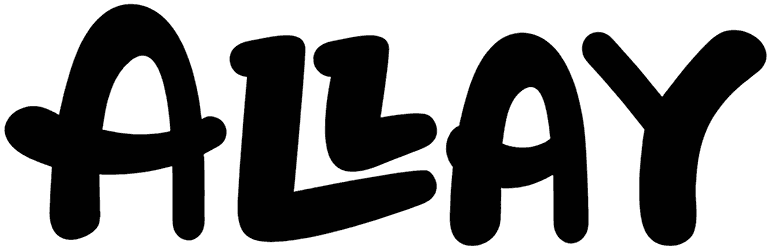
Allay Font
Considering a fun and cheerful vibe for context can be an unexpected promotion for your intended design. As a cartoon font with a chunky face, Allay can successfully communicate with your onlookers.
With the innovative and tasty mood of this masterpiece, it wouldn’t be tough to create a remarkable design and get lots of love. It lacks the lowercase letters, yet it’s in the lead! Use it to create anything unique to blow your customers’ minds!